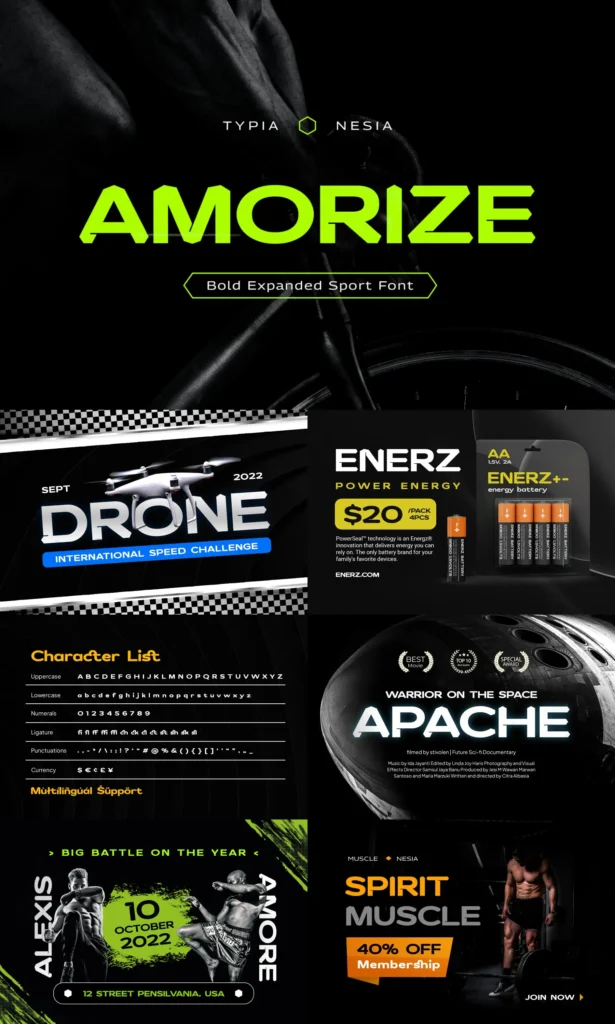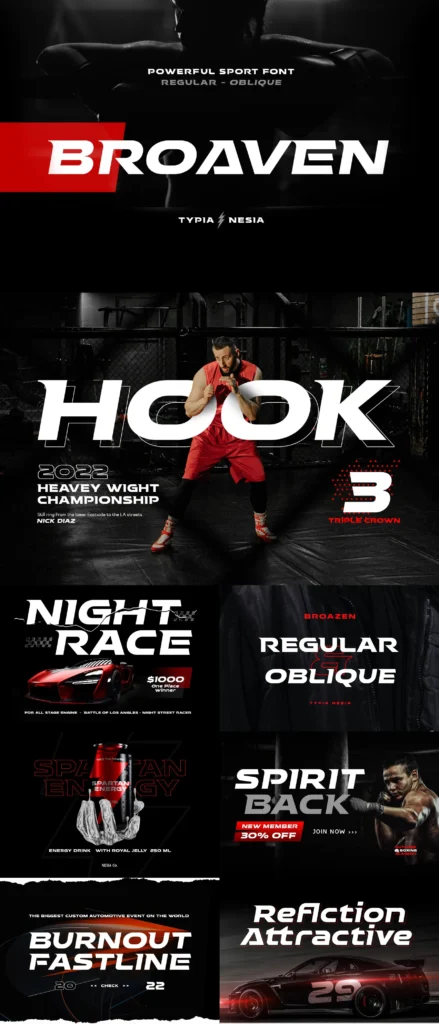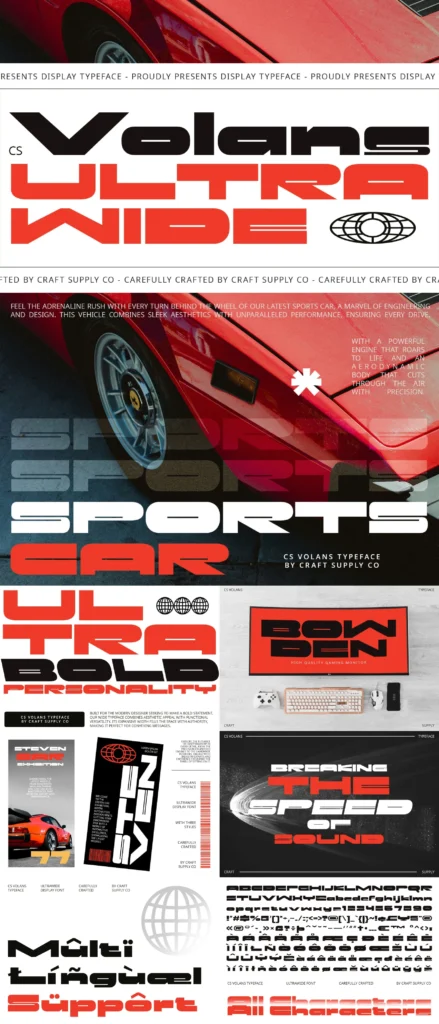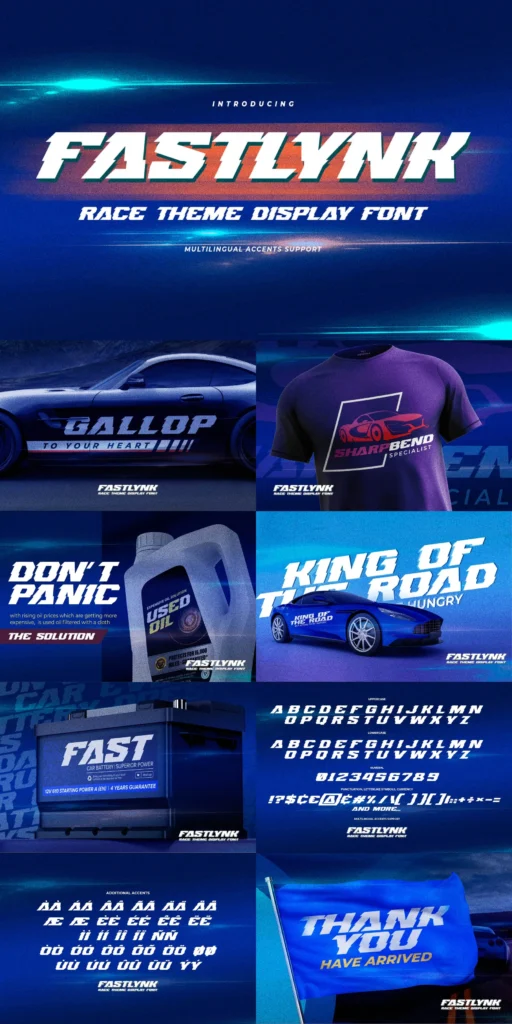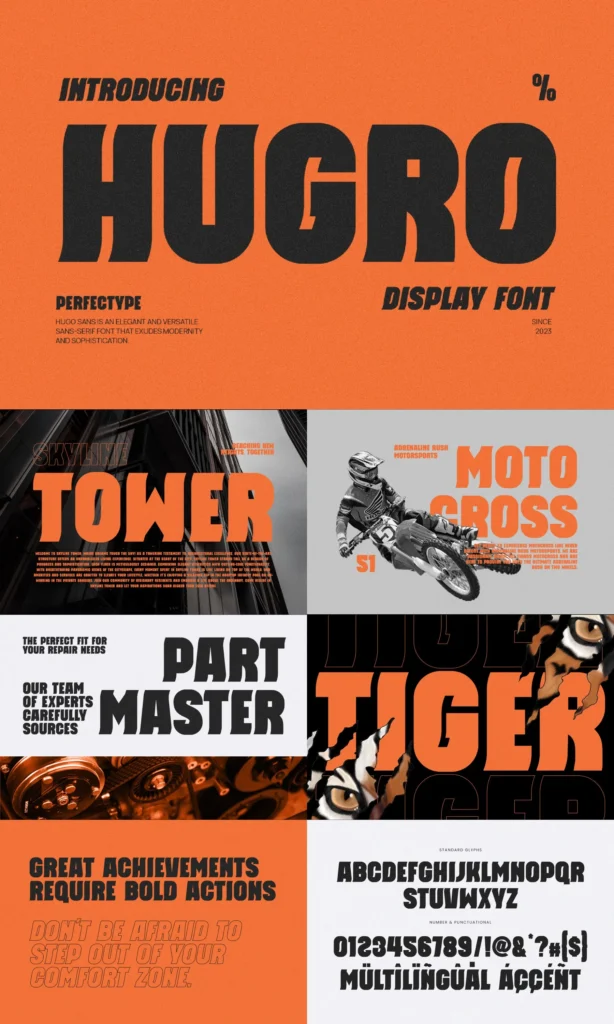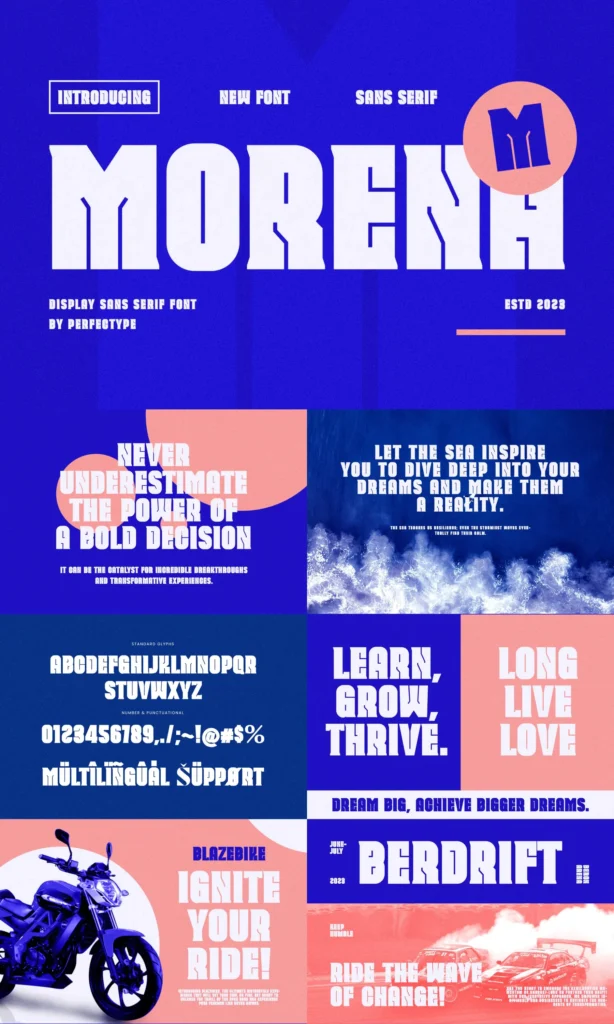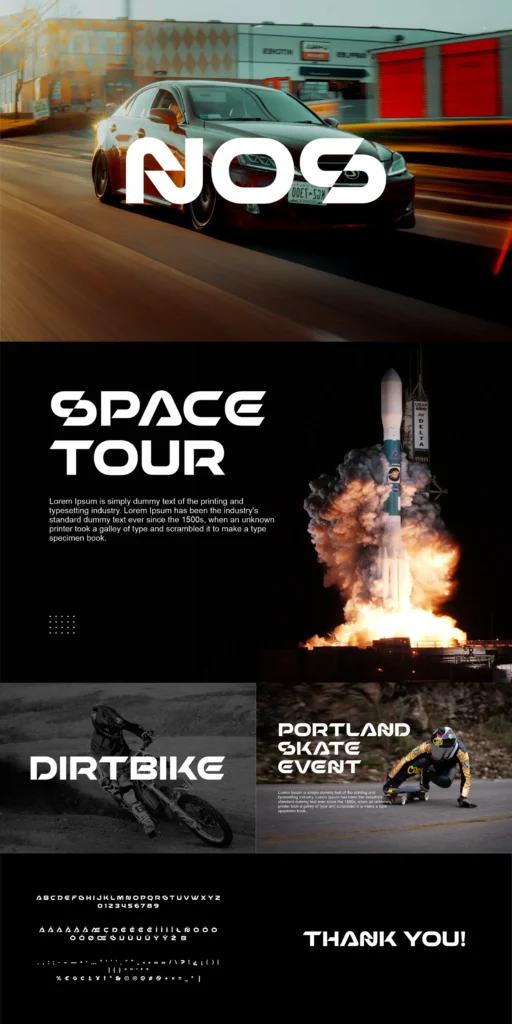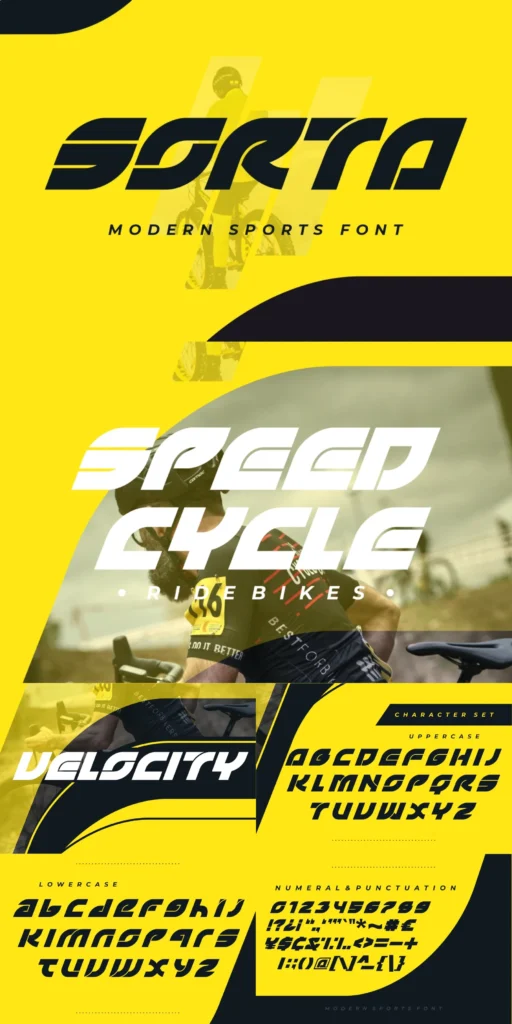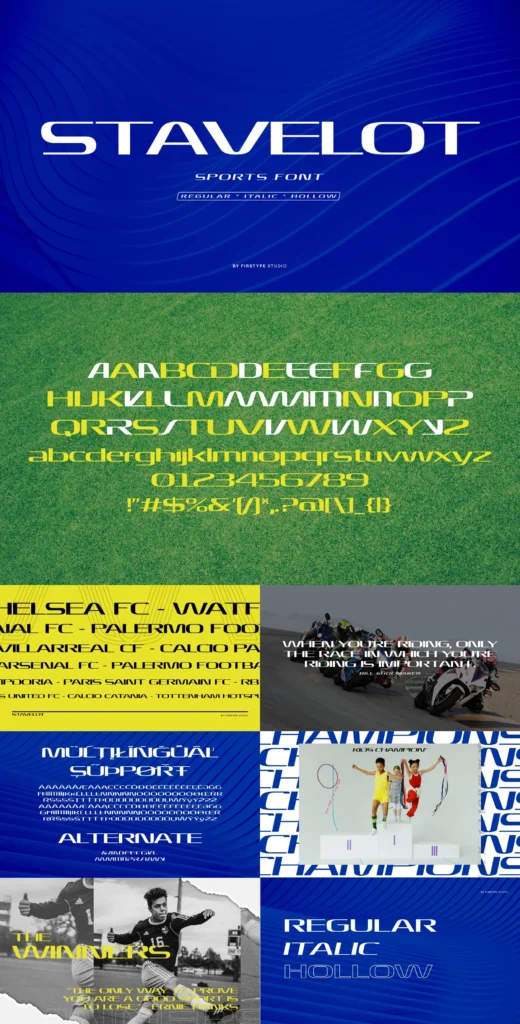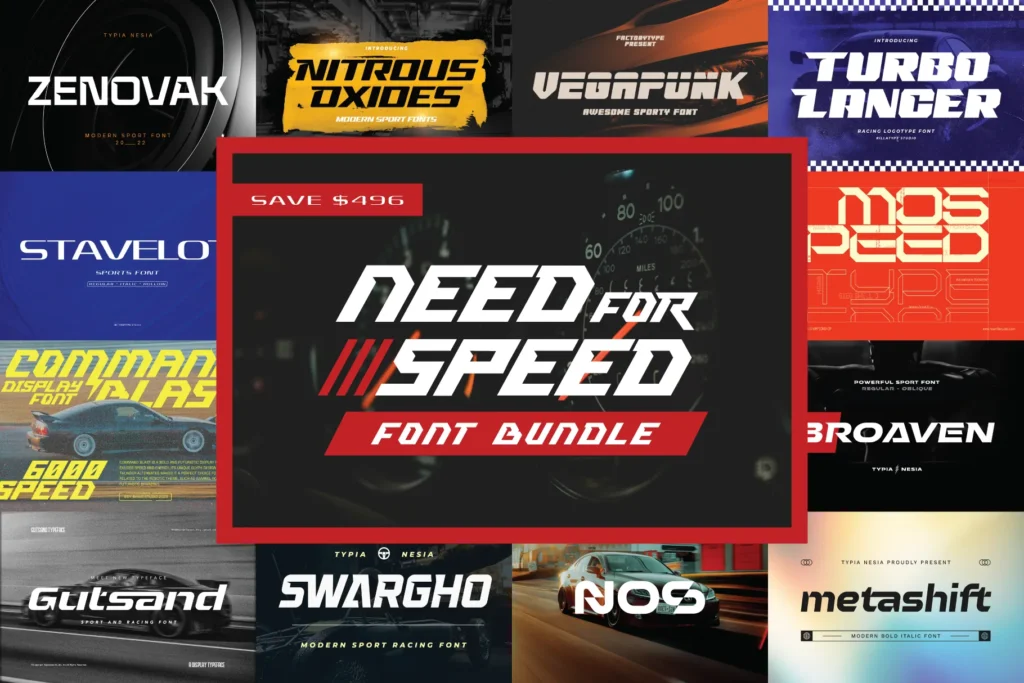
The Need For Speed Font Bundle
Introducing
The Need for Speed Font Bundle
– a high-octane collection of 24 typefaces that capture the thrill of speed & racing.
From sleek, aerodynamic styles to rugged, racing-inspired typefaces, this collection is packed with edgy fonts that evoke speed and motion, making it perfect for creating impactful, fast-paced designs.
Whether you’re designing for racing, athletics or e-sports, these dynamic products are perfect for logos, advertising, apparel & content creation.